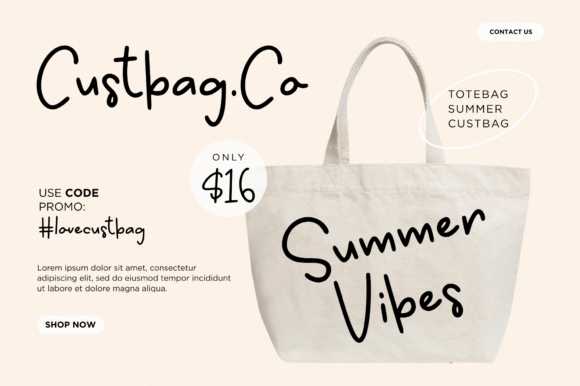
Tempting Potatoes Font
Tempting Potatoes is a beautifully organic handwritten font, perfect for breathing personality into your note-taking endeavors. Its natural and simplistic aesthetic is ideal for a variety of text-based projects, offering an authentic touch to every word composed. As a school font, Tempting Potatoes enhances learning experiences by contributing a distinctive flair to educational materials. However, its versatility doesn’t end there. It’s an excellent choice for product packaging, infusing branding projects with an invigorating freshness. Whether it’s for a magazine feature, a social media post, book manuscript, wedding invitations, or simply accentuating words against a backdrop, Tempting Potatoes is guaranteed to deliver an impressive impact.